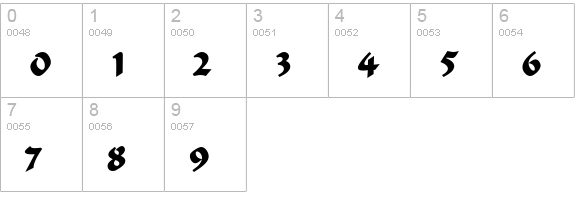
Marlin Bold Font Details
Marlin Bold is a strong, high-contrast variant in the Marlin typeface family \xE2\x80\x94 well suited to headlines, attention-grabbing titles, and strong calls-to-action.
Marlin Bold is a striking and powerful font that exudes confidence and sophistication. With its bold and prominent letterforms, this typeface demands attention and makes a statement. Perfect for headlines, titles, or any design that requires a strong visual impact, Marlin Bold is a versatile font that can be used across a wide range of projects. One of the standout features of Marlin Bold is its versatility in conveying various moods and emotions. Whether you want to project a sense of authority, elegance, or modernity, this font can effortlessly adapt to your desired aesthetic. Its clean lines and sharp edges give it a contemporary feel, while its substantial weight ensures legibility even at smaller sizes. What sets Marlin Bold apart is not just its visual appeal, but also its accessibility. This font is freely available to download at FontsMarket.com, making it accessible to designers and creatives of all backgrounds. The fact that it is free does not compromise its quality or functionality; in fact, it only enhances its value. By choosing Marlin Bold, you are not only getting a visually stunning font, but also a cost-effective solution for your design needs. Whether you are working on a personal project or a professional assignment, this font will undoubtedly elevate your designs and leave a lasting impression. So why wait? Download Marlin Bold today from FontsMarket.com and unleash the power of this captivating font in your next project. With its striking presence and effortless versatility, Marlin Bold is sure to become a go-to choice for designers seeking a bold and impactful font.